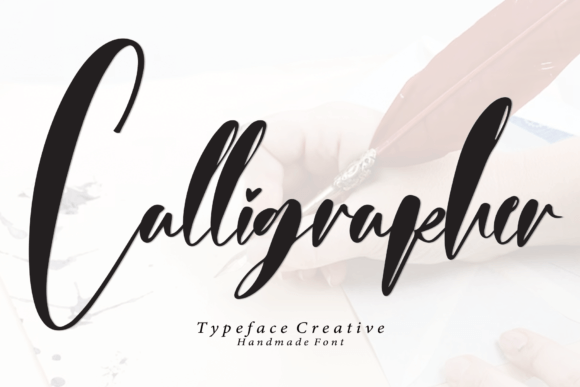
The Art of Elegant Typography: Calligrapher Font
As a designer, there’s nothing quite like the thrill of bringing a creative vision to life. You’ve spent hours perfecting every detail, from the color palette to the typography. And then, it hits you – the perfect font to elevate your design to the next level. For many, that font is Calligrapher Font, a stunning script font that adds a touch of elegance to any design.
Whether you’re crafting a wedding invitation, a heartfelt thank you note, or a logo that screams sophistication, Calligrapher Font is the perfect choice. Its charming, handwritten feel is sure to captivate your audience and leave a lasting impression. As a designer, you know how valuable it is to have a versatile font that can be used in a variety of contexts, from greeting cards to business cards.
Calligrapher Font Key Features
- Unique Characteristics: Features elegant, cursive script with intricate flourishes and subtle nuances, perfect for adding a touch of sophistication and elegance to any design.
- Language Support: Supports a wide range of languages, including Latin, Cyrillic, Greek, and many others, making it an ideal choice for multilingual designs.
- Kerning and Ligatures: Includes advanced kerning and ligature features, ensuring smooth text flow and beautiful typography, even at small font sizes.
Calligrapher Font Review
I was excited to dive into the Calligrapher Font, but my experience was a mix of delight and disappointment. Here’s the lowdown.
- The Calligrapher Font is incredibly detailed, with intricate line work that adds a touch of elegance to any design.
- The font is highly customizable, allowing you to adjust the size, color, and spacing to fit your project’s unique needs.
- The font is compatible with a wide range of devices and software, making it a great choice for designers who need to work across platforms.
- The Calligrapher Font can be overwhelming for simple text-based projects, with its intricate details and ornate flourishes.
- The font can be challenging to read in certain contexts, such as in small sizes or with low contrast backgrounds.
- The font’s high level of customization can be both a blessing and a curse, making it difficult to achieve a consistent look and feel across different elements.
The Calligrapher Font is a beautiful, high-quality font that’s perfect for projects that require a touch of sophistication and elegance. However, it may not be the best choice for every design task. With some careful planning and consideration, this font can be a real showstopper.
Calligrapher Font: A Practical Application Guide
Tips for Getting the Most Out of the Calligrapher Font
Experiment with different font sizes, colors, and decorations to create unique and eye-catching text effects.
Combine the Calligrapher Font with other decorative fonts to create a visually appealing mix of styles.
The Calligrapher Font is ideal for:
Special occasion cards and gift tags
Event signage and banners
Branding and marketing materials
Alternatives to Calligrapher Font
Great Vibes Font is a modern calligraphy font that works well for digital designs. It’s ideal for use in titles, headings, and quotes. When to use: Digital designs, titles, headings, and quotes.
Compared to Calligrapher Font, Great Vibes Font has a more modern and sleek feel. It’s also more versatile and works well in a variety of contexts.
Carolyna Pro Font is a high-end calligraphy font that’s perfect for luxury brands and high-end designs. It’s ideal for use in titles, headings, and body text. When to use: Luxury brands, high-end designs, titles, headings, and body text.
Compared to Calligrapher Font, Carolyna Pro Font has a more elegant and sophisticated feel. It’s also more detailed and works well in larger font sizes.
Q: Does Calligrapher Font support advanced typographic features?
Yes, Calligrapher Font supports advanced typographic features, including ligatures, swashes, and contextual alternates. These features can be accessed using OpenType-aware software applications, such as Adobe Illustrator and InDesign, and can add a high level of sophistication and elegance to your designs.